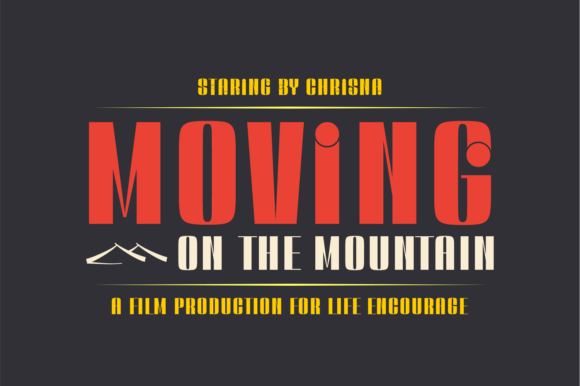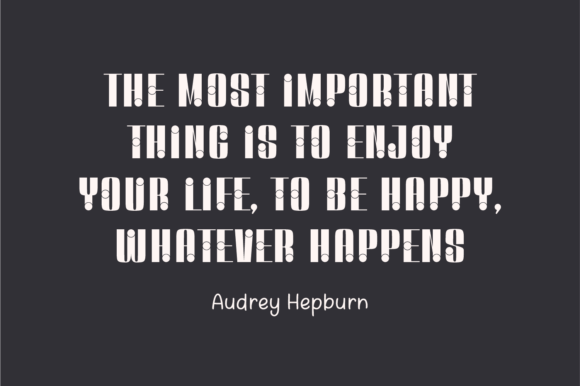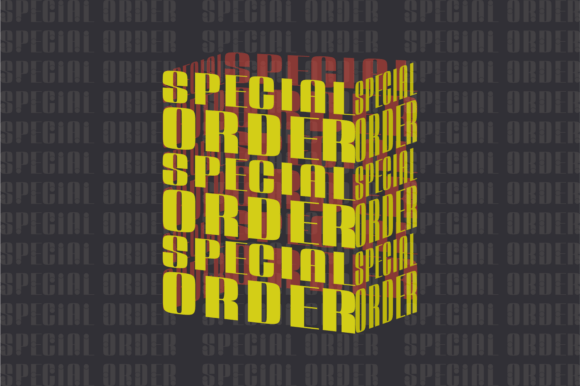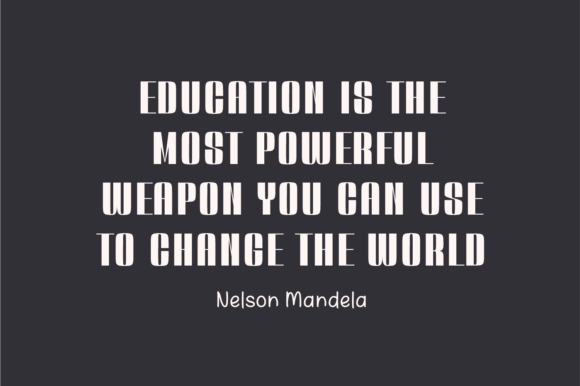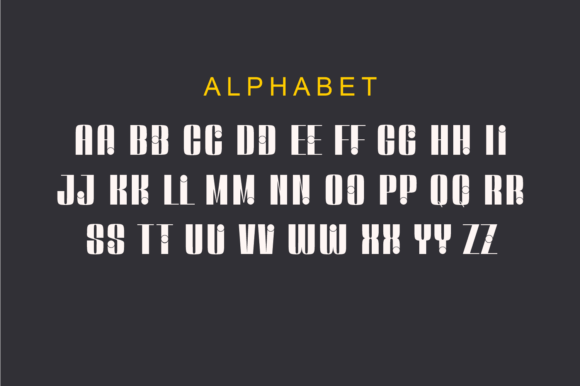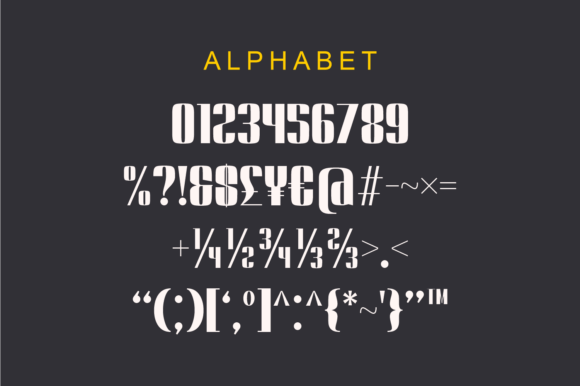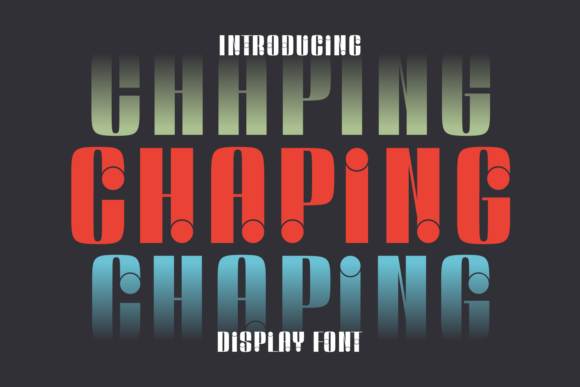
Discover the Elegance of Chaping Font: Elevate Your Designs with a Unique Twist
In the realm of typography, the right font can transform your design from ordinary to extraordinary. For those seeking a blend of minimalism and sophistication, the Chaping font emerges as a game-changer. This distinctive typeface is meticulously crafted to add a touch of elegance to your artistic layouts, making it an indispensable tool for designers and crafters alike.
The Essence of Chaping Font
At first glance, the Chaping font appears to be a classic sans serif typography, renowned for its clean and minimalist aesthetic. However, what sets it apart is the ingenious addition of fine dots at the conclusion of each lowercase alphabet. This subtle detail injects a refreshing nuance into the traditional sans serif design, imbuing it with a sophisticated charm that is hard to overlook.
Key Features of Chaping Font
- Minimalist Aesthetic: The Chaping font retains the simplicity and clarity of sans serif typography, making it versatile for a wide range of design applications.
- Unique Dot Accents: The fine dots at the end of each lowercase letter add a distinctive touch, providing a harmonious and sophisticated rhythm to your designs.
- Enhanced Readability: Despite its decorative element, the Chaping font maintains high readability, ensuring that your message is conveyed effectively.
- Versatility: Its elegant design makes it suitable for various creative projects, from branding and advertising to digital media and print.
Applications of Chaping Font
The Chaping font’s unique characteristics make it an excellent choice for a variety of design projects. Here are some of the areas where it can make a significant impact:
- Branding and Logos: Use the Chaping font to create memorable and sophisticated brand identities that stand out in the market.
- Advertising and Marketing Materials: Its elegant and modern look makes it perfect for headlines, posters, and digital ads, capturing the audience’s attention effectively.
- Web Design: Enhance your website’s typography with the Chaping font, providing a seamless and engaging user experience.
- Stationery and Packaging: Add a touch of sophistication to your business cards, letterheads, and product packaging with this distinctive font.
Tips for Using Chaping Font Effectively
To maximize the potential of the Chaping font, consider the following tips:
- Pair it Wisely: Combine the Chaping font with complementary typefaces to create visual interest and hierarchy in your designs.
- Experiment with Sizes: Play with different font sizes to highlight the unique dot accents and create emphasis where needed.
- Adjust Line Spacing: Ensure adequate line spacing to maintain readability and let the elegant design breathe.
| Font Name | Chaping Font |
| Author | Yan (7NTypes) |
The Chaping font is a remarkable addition to the world of typography, offering a perfect blend of minimalism and sophistication. Its unique design, characterized by the fine dots at the end of lowercase letters, provides a subtle yet impactful way to elevate your designs. Whether you’re a designer looking to enhance your project’s aesthetic or a crafter seeking to add a touch of elegance to your creations, the Chaping font is an excellent choice. Embrace this distinctive typeface to discreetly sophisticate your graphical narratives and leave a lasting impression on your audience.
With its versatility, readability, and distinctive charm, the Chaping font is poised to become a favorite among creative professionals. Explore its potential, and discover how it can transform your designs into captivating visual stories.